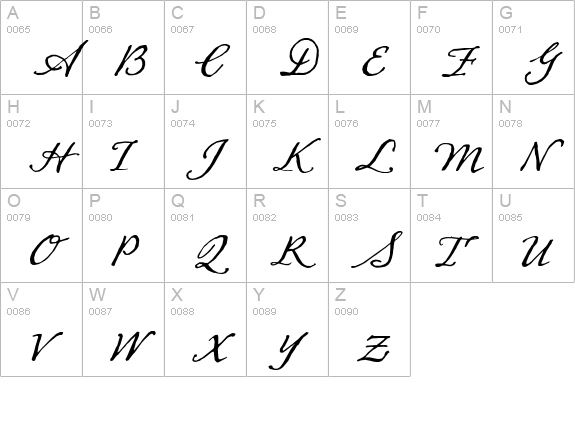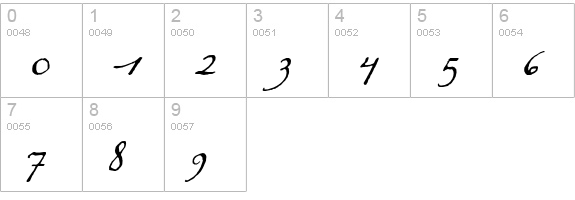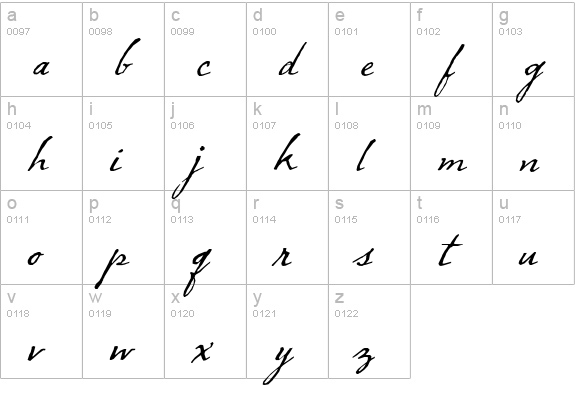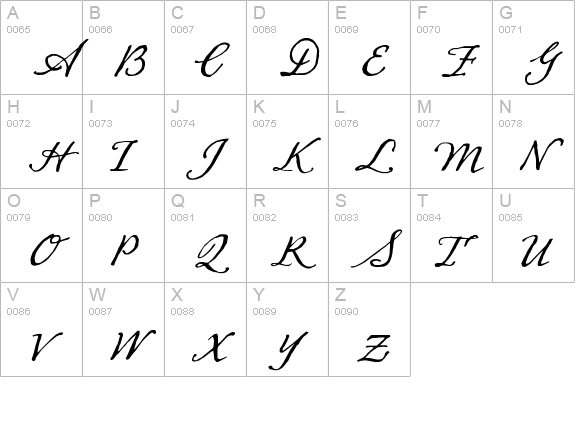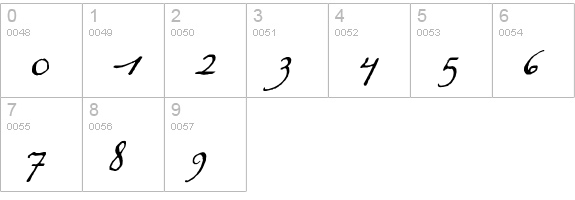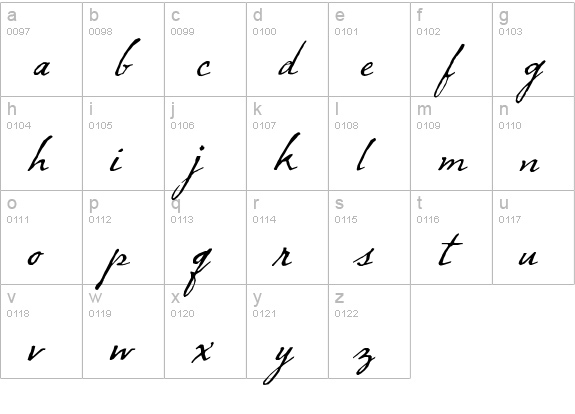
Dear Sarah Alt One is a charming and elegant script font that exudes sophistication and grace. Its delicate curves and flowing lines give it a timeless and classic appeal, making it perfect for a variety of design projects. Whether you are creating invitations, logos, or branding materials, Dear Sarah Alt One is sure to add a touch of elegance to your work. What sets Dear Sarah Alt One apart is its versatility and readability. The font is easy to read, making it suitable for both large headlines and small body text. Its stylish yet legible design makes it a great choice for any project where you want to make a statement. The best part? Dear Sarah Alt One is available for free download at FontsMarket.com. This means you can easily add this stunning font to your collection without breaking the bank. Don't miss out on the opportunity to enhance your designs with the beauty and sophistication of Dear Sarah Alt One. Download it today and elevate your projects to the next level.